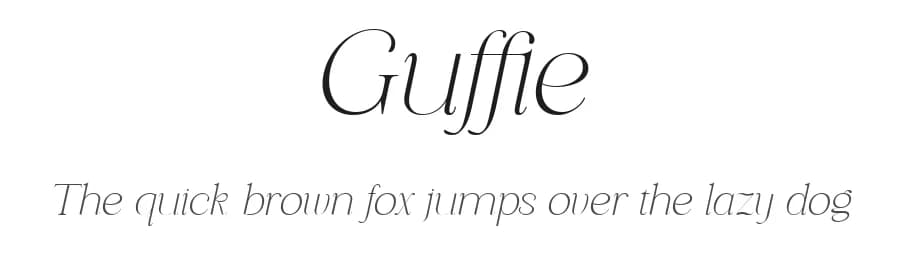
About Guffie Font
Guffie Specifications
| Font Family | Guffie |
| Full Name | Guffie Italic |
| Glyph Count | 260 glyphs |
| PostScript Name | Guffie-Italic |
| Designer | dealitastudio |
Guffie supports 214 languages.
Guffie Font is a versatile serif font that works for both headings and body text. Pair it with a contrasting sans-serif or slab serif font to add visual interest and a clear distinction between titles and body copy.
Guffie Font